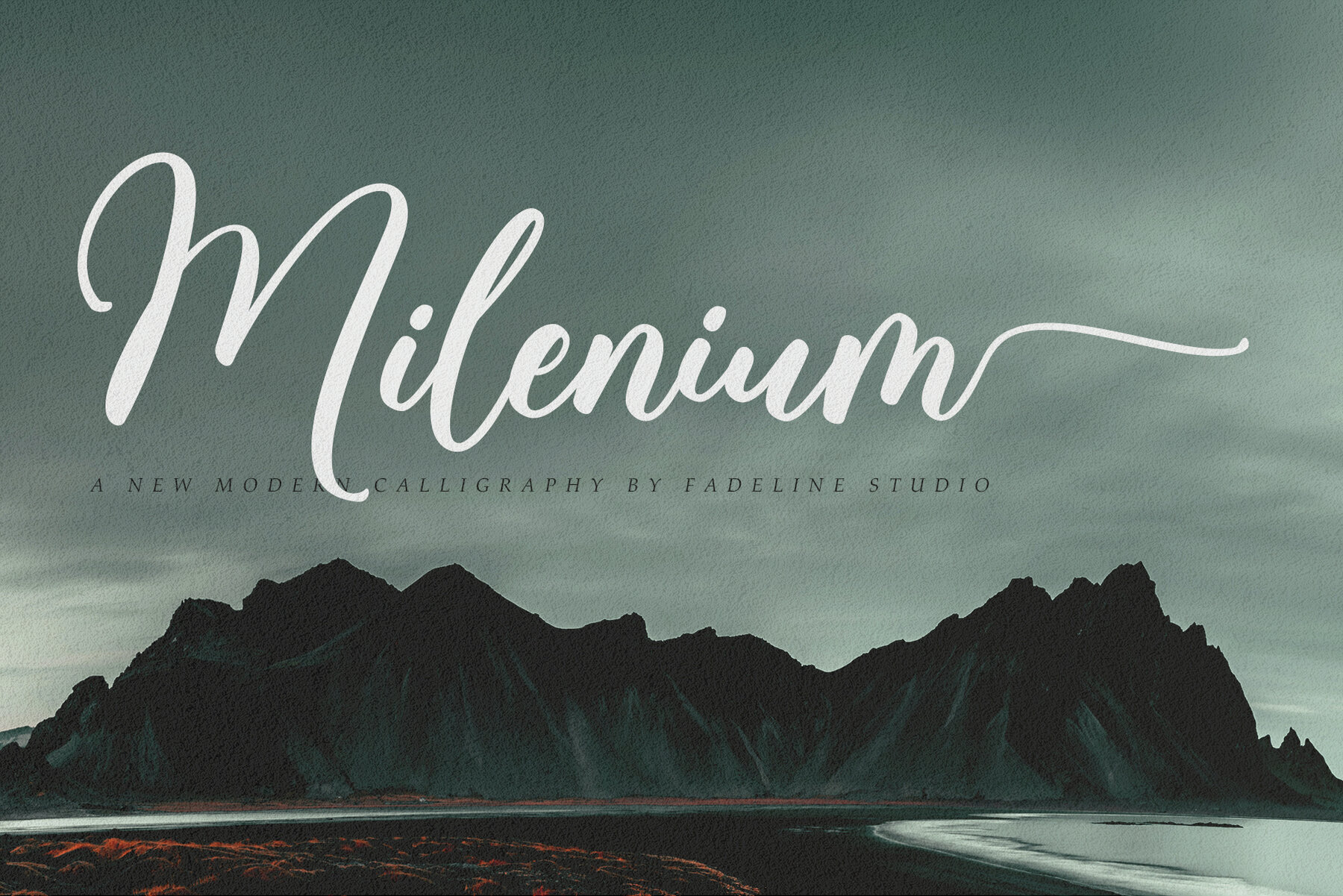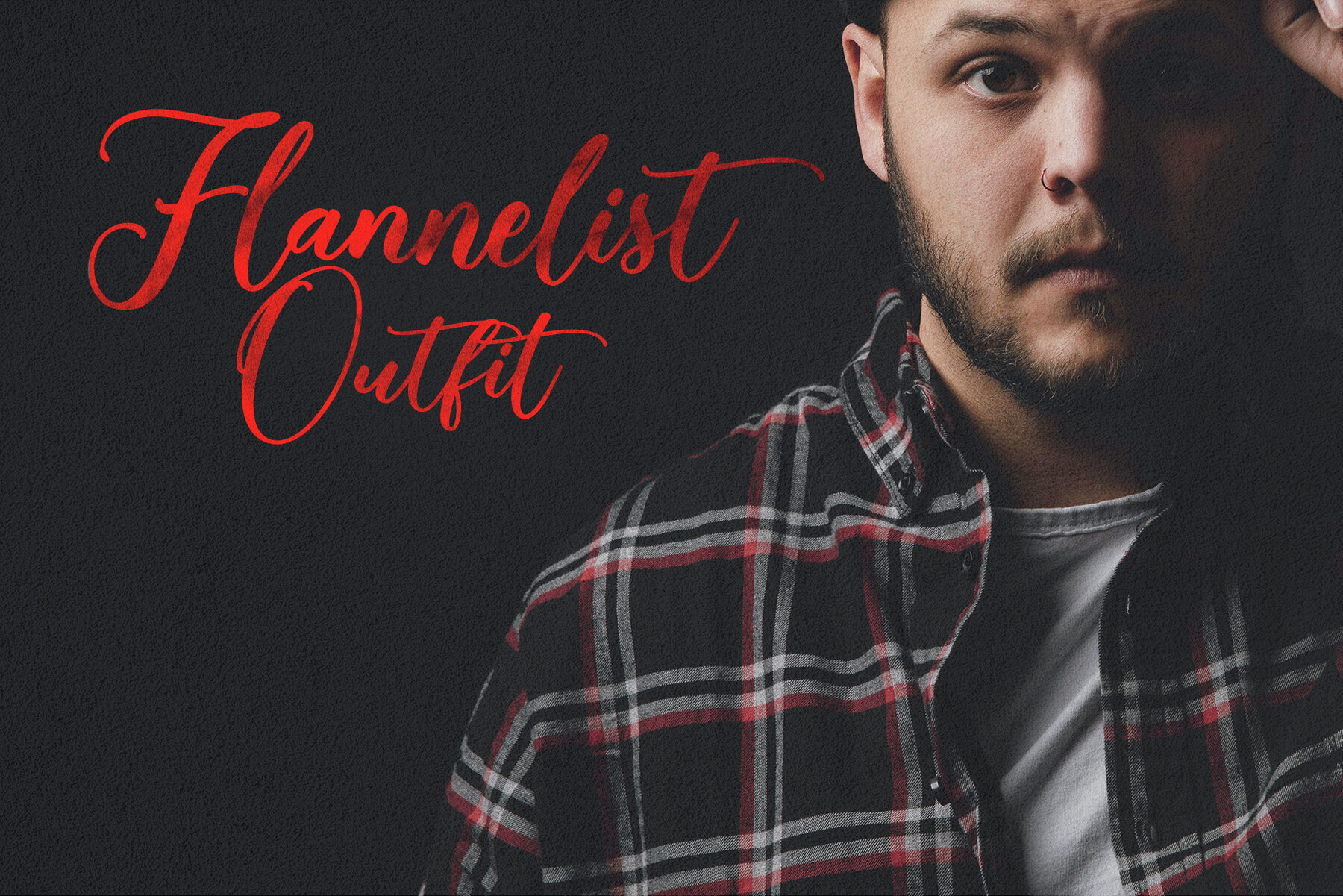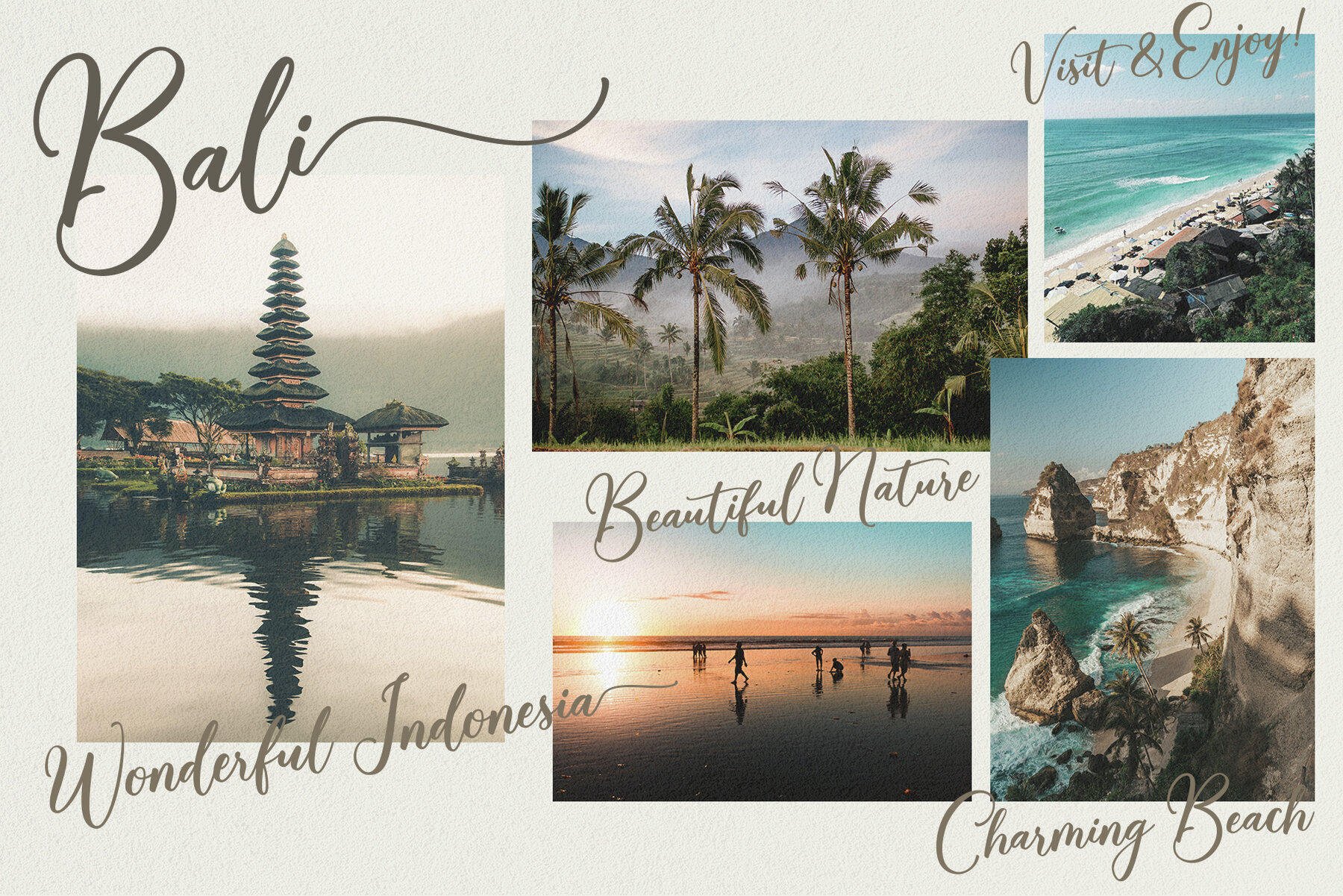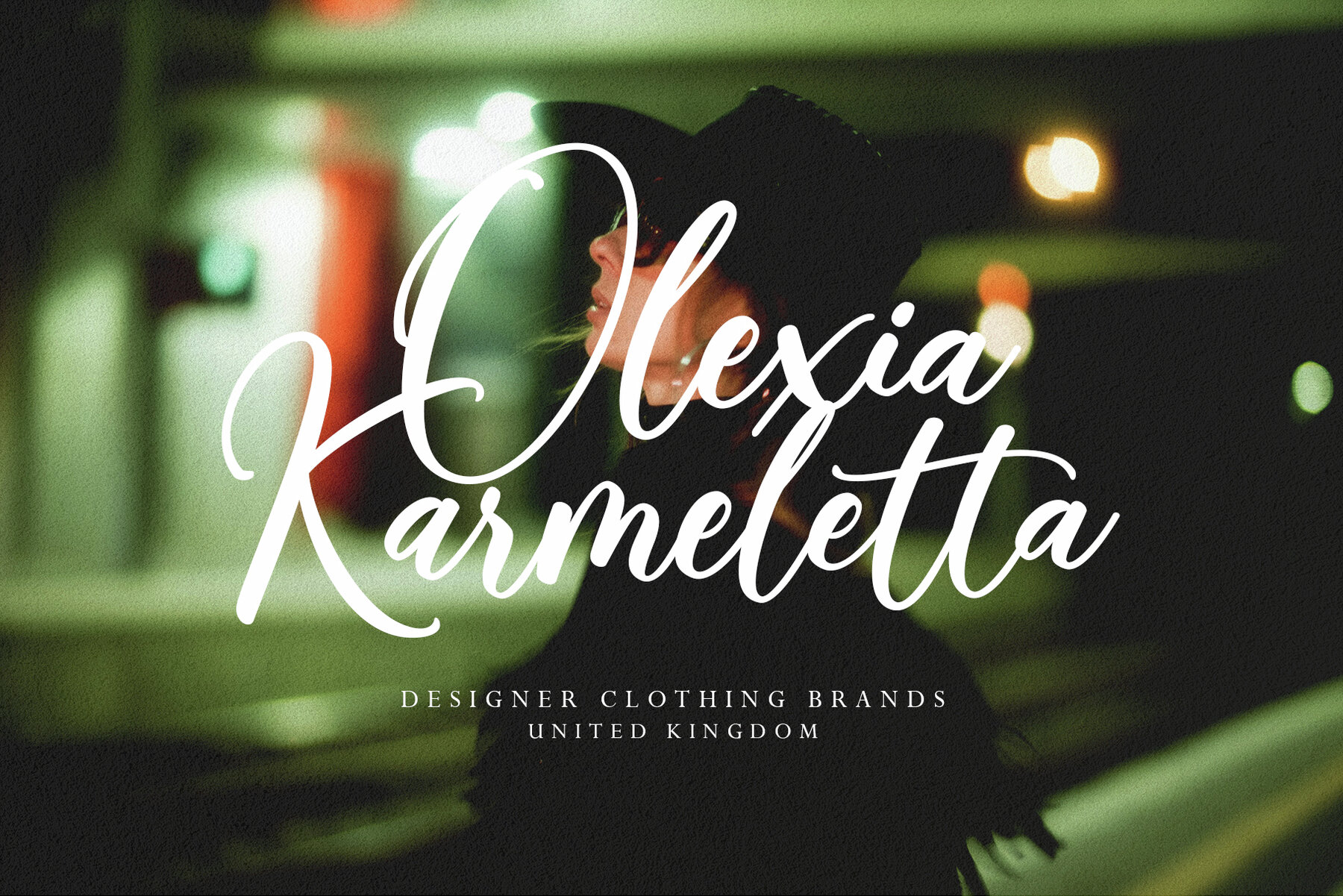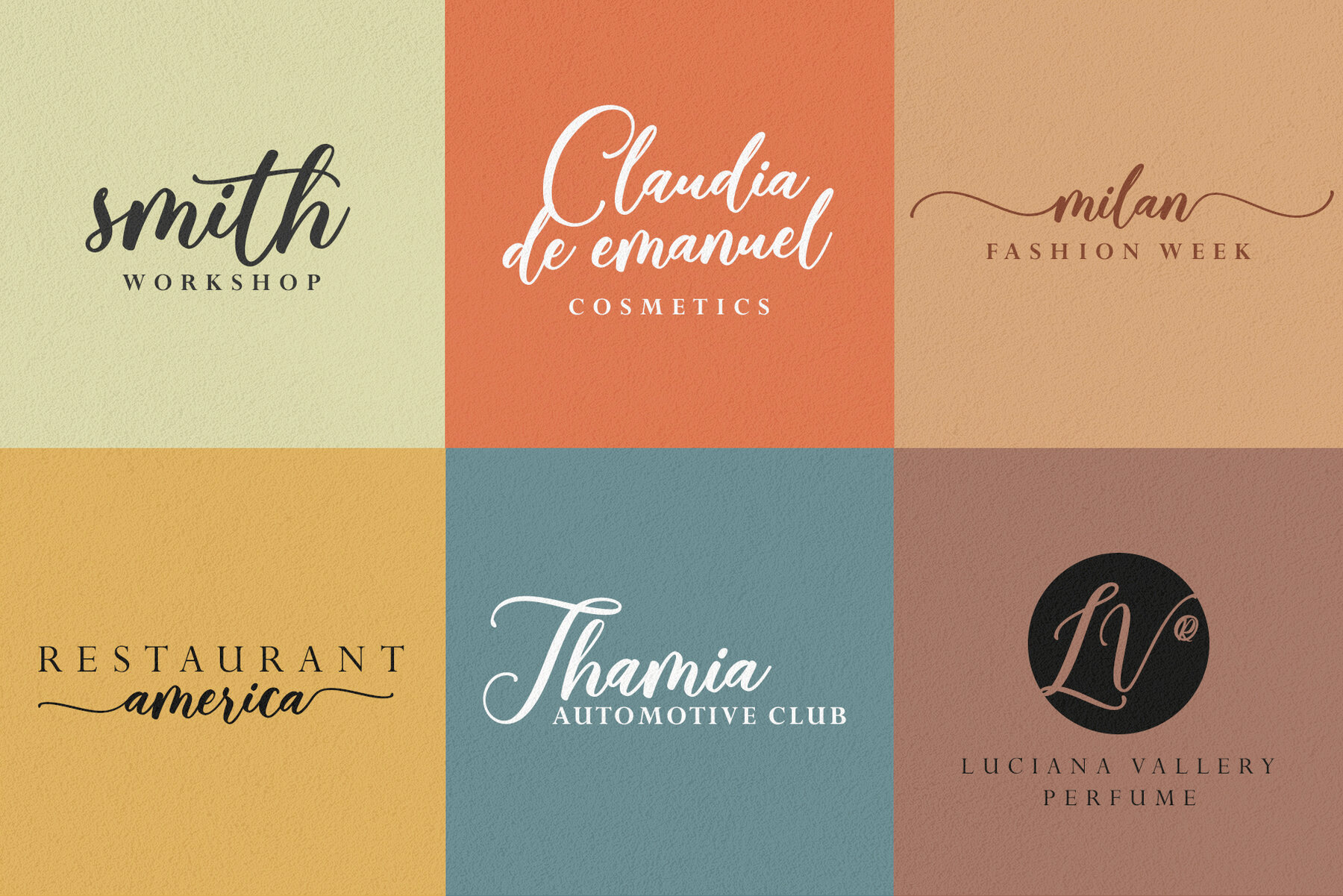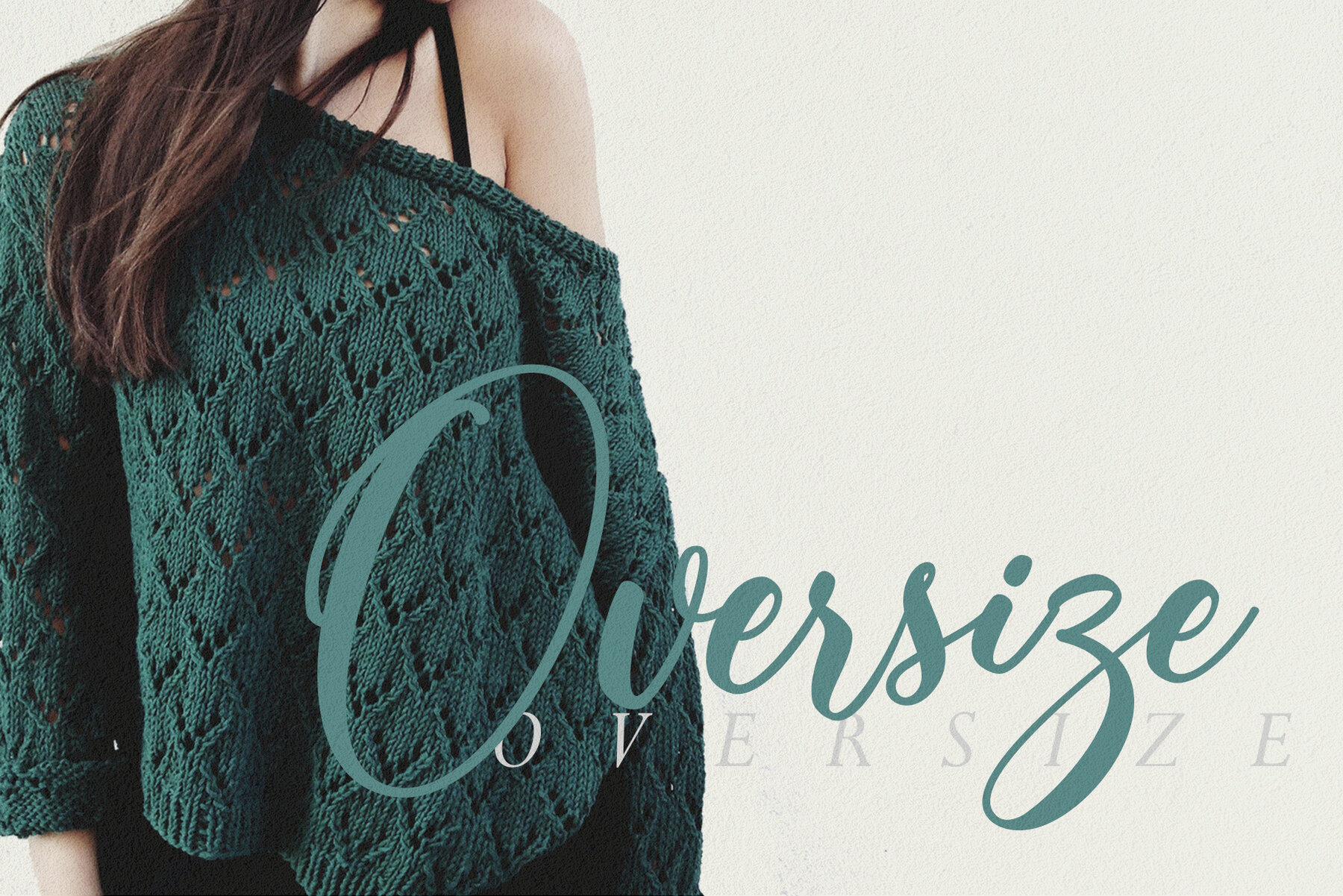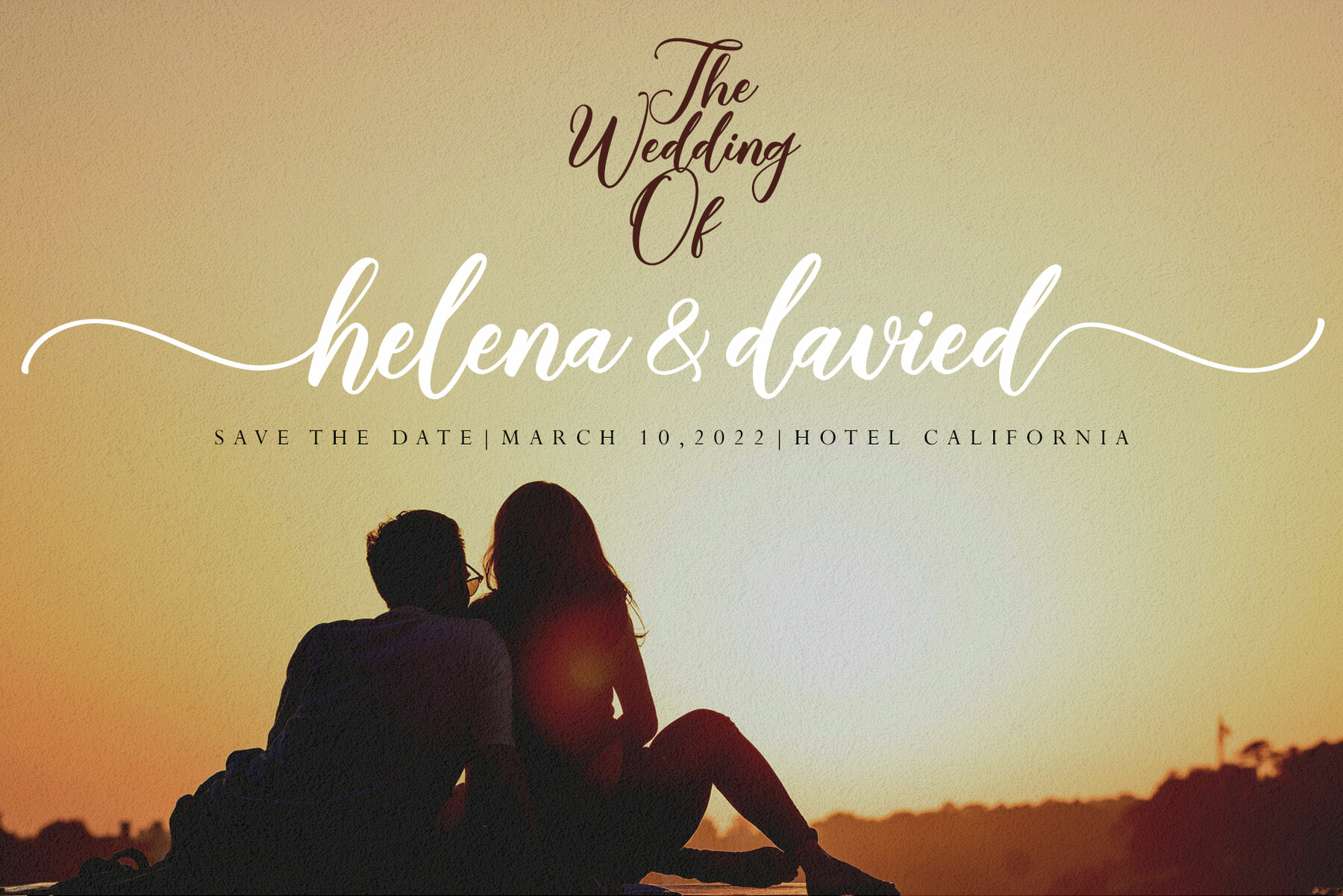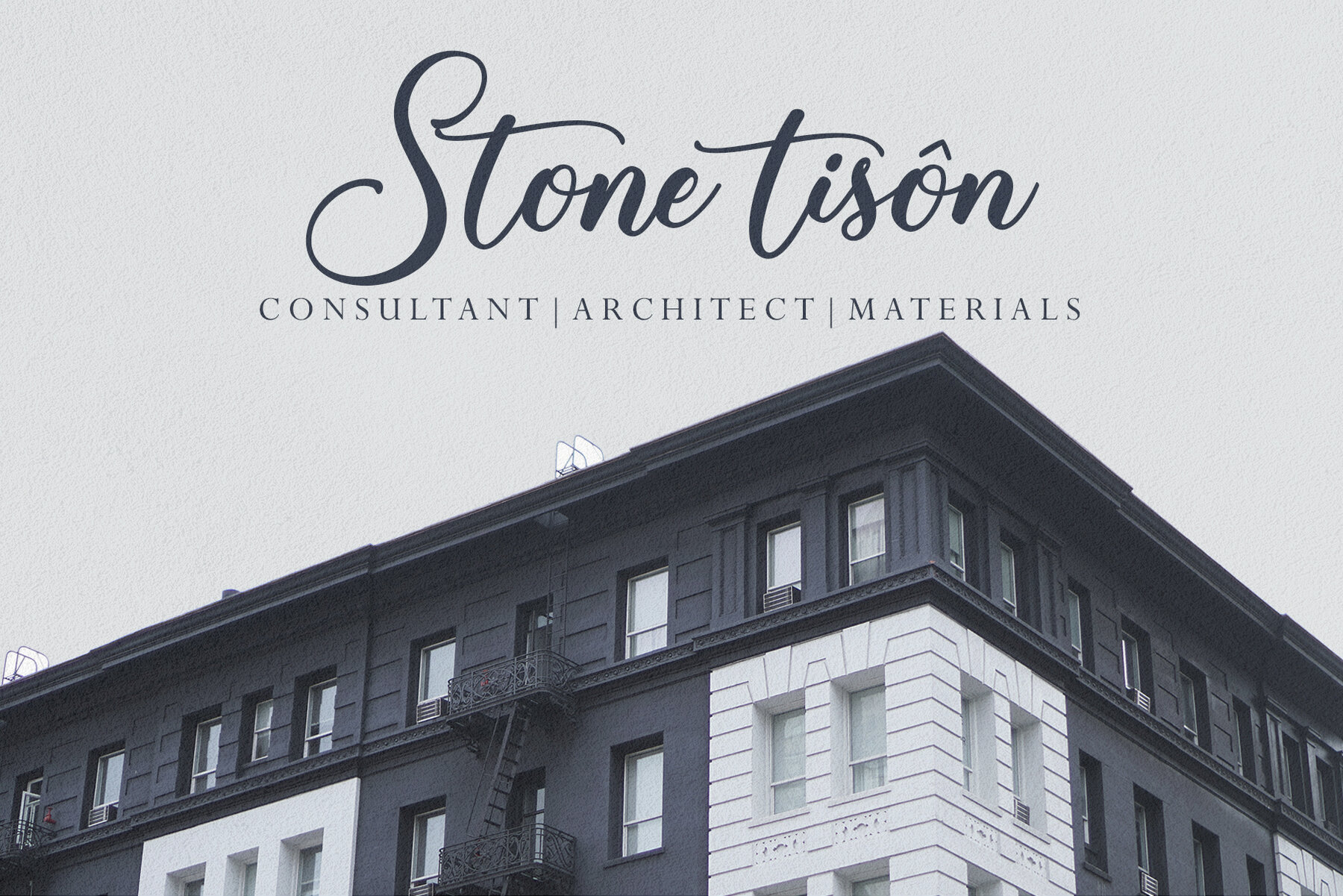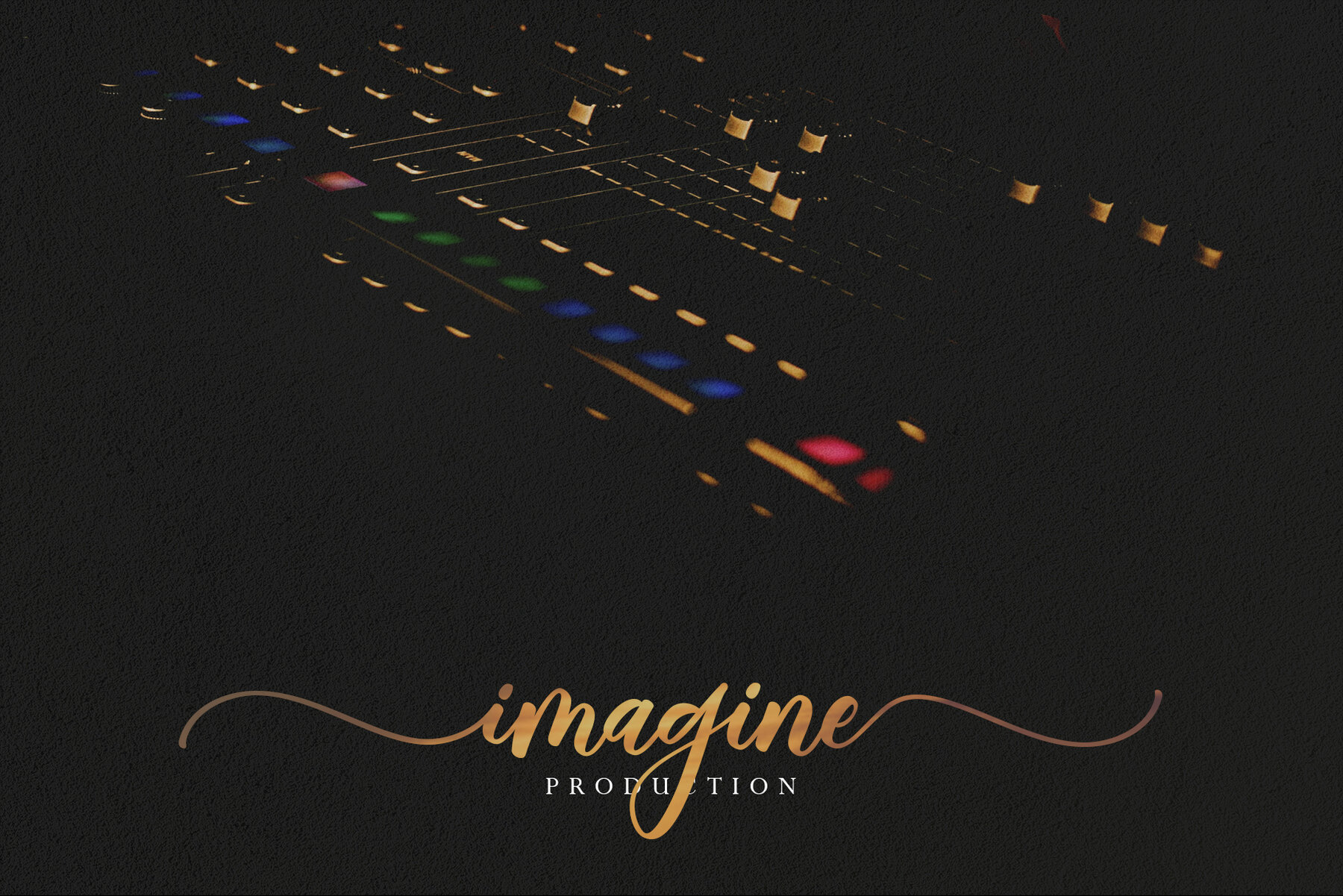
Milenium Font
Milenium Script
Milenium is a contemporary calligraphy font crafted by FadeLine Studio in a casual and straightforward style. This italic and semibold typeface is meticulously designed to showcase elegance, neatness, simplicity, and boldness while retaining a chic flair. Perfect for a variety of creative projects, Milenium brings sophistication to your designs.Milenium: A Modern Calligraphy Font